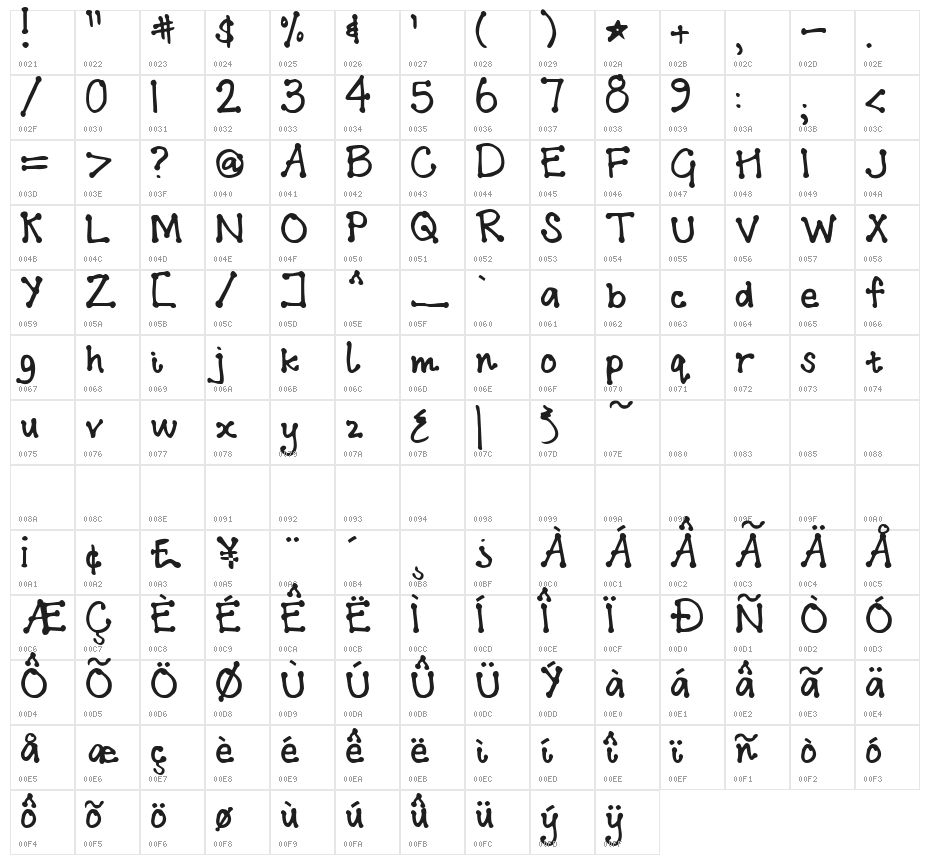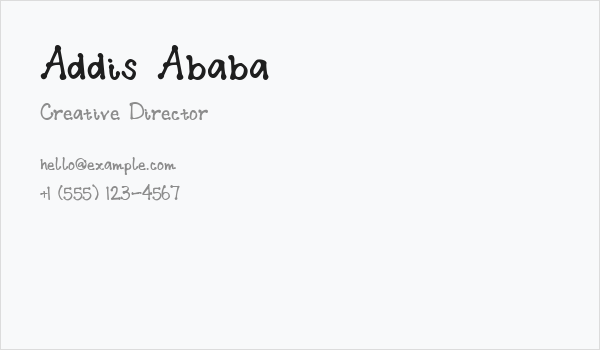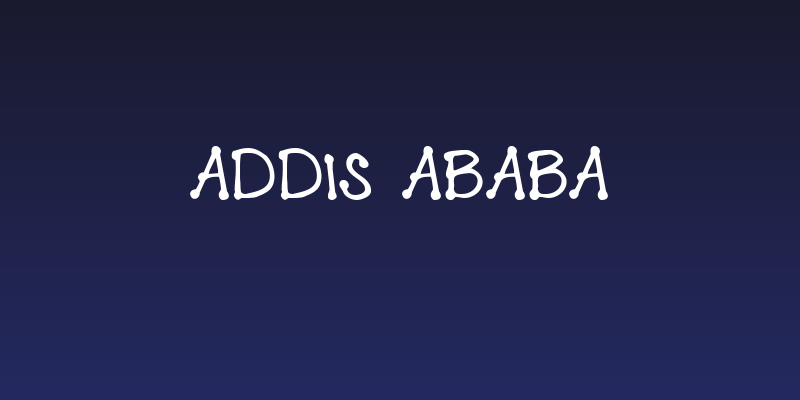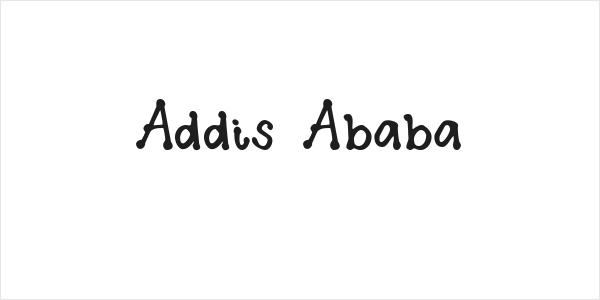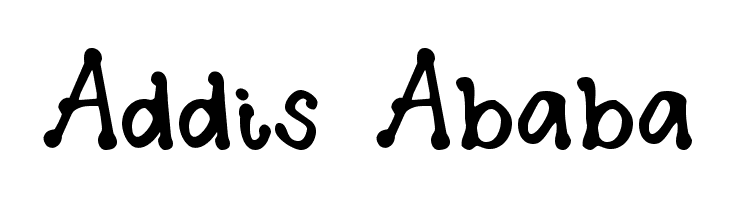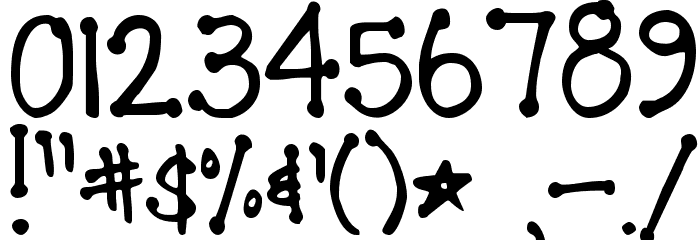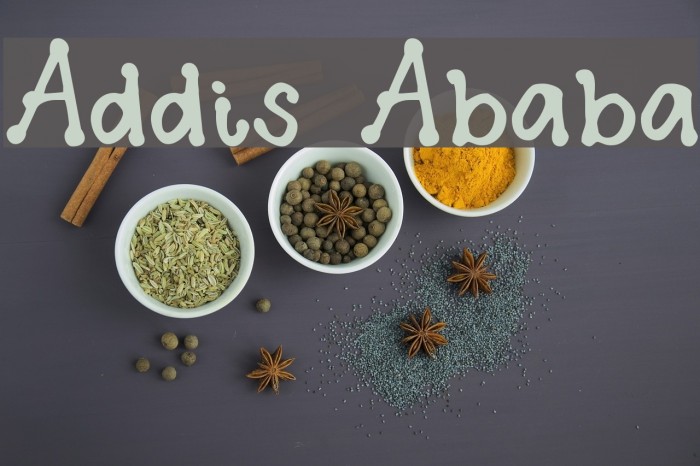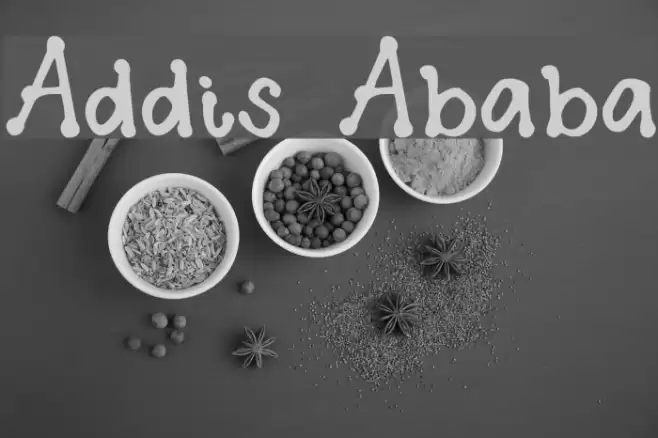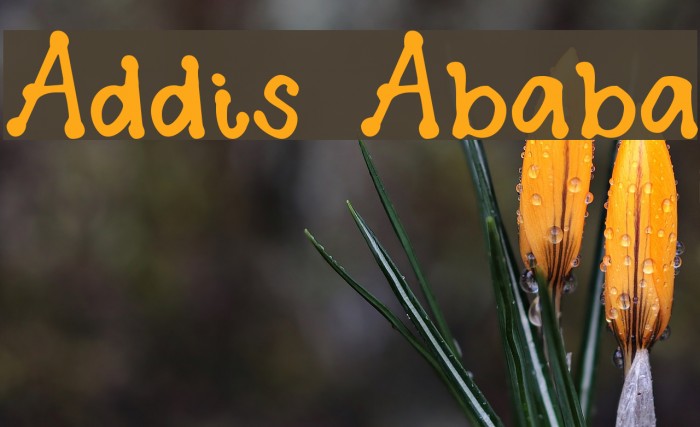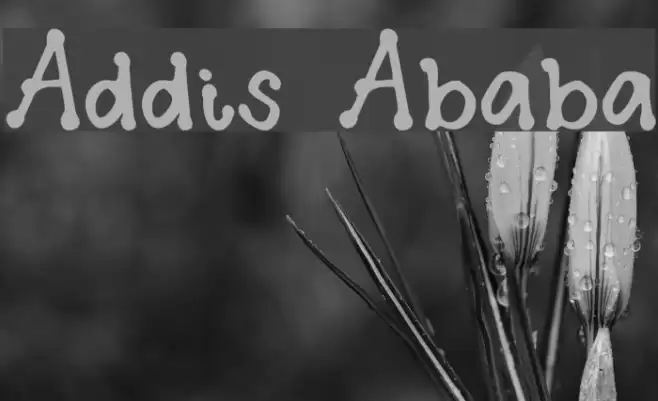
Addis Ababa Font
| Общий стиль | Casual, Playful |
| Область применения | Headlines, Informal text, Creative projects |
| Рекомендуемые проекты | Ideal for greeting cards, children's books, casual branding, and creative invitations. |